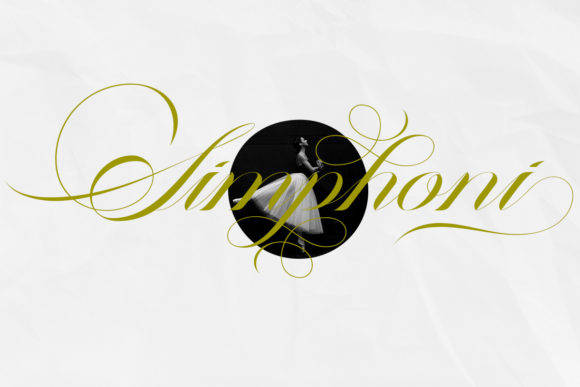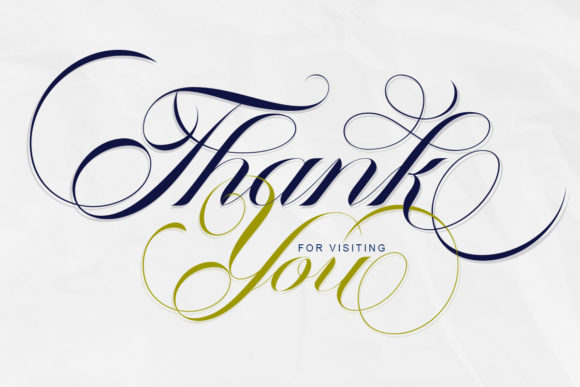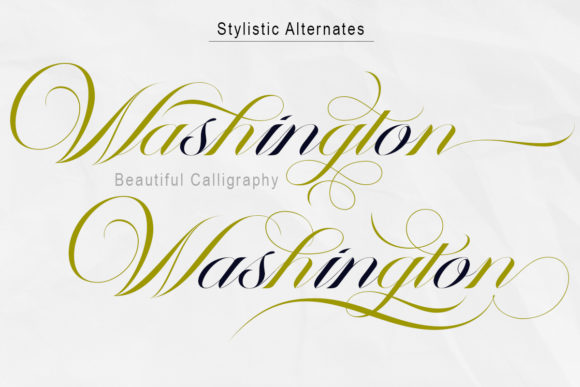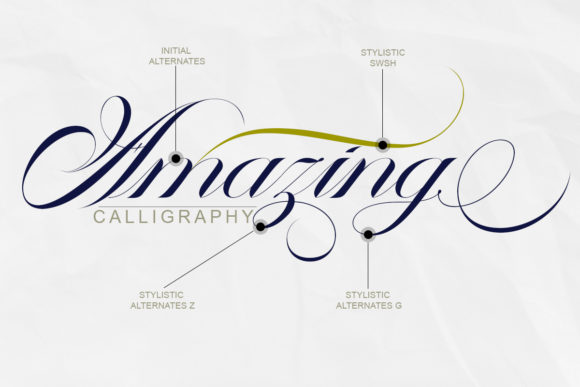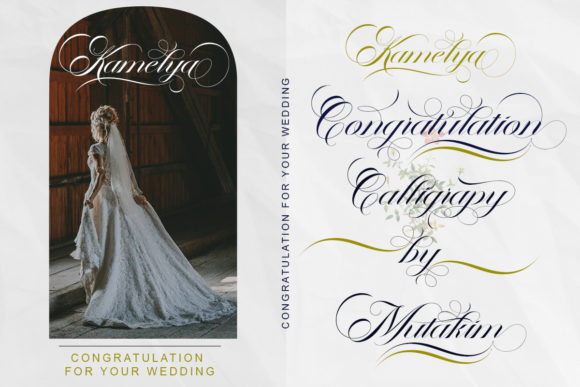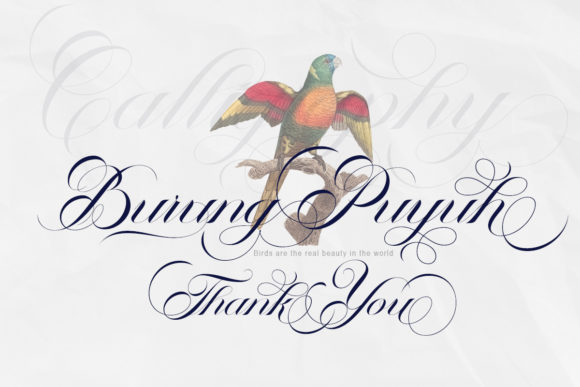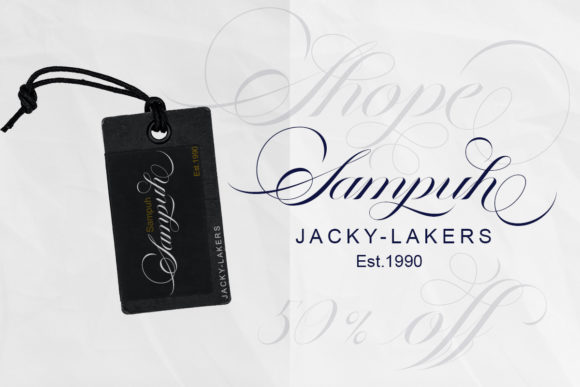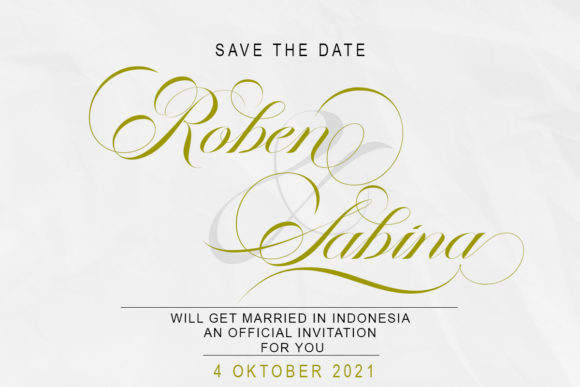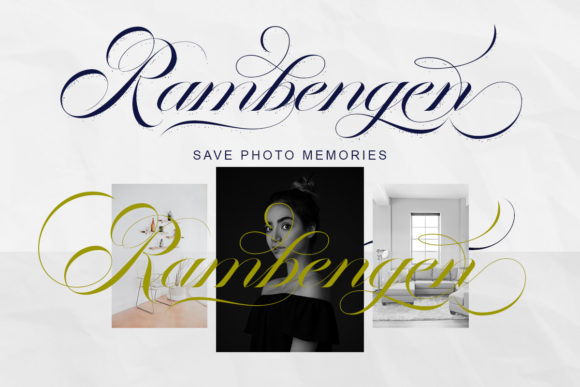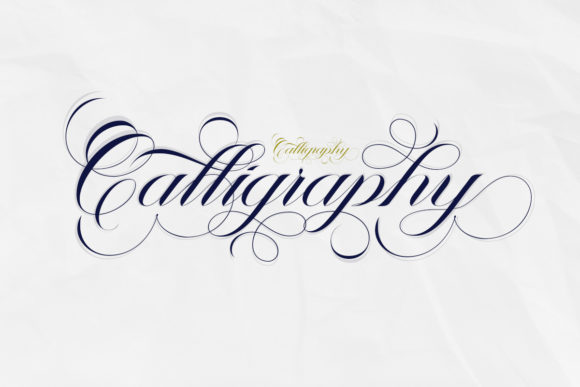
The Antter Font
About The Antter Font
The Antter is a calligraphy script font. This is a beautiful combination of timeless elegance and authentic calligraphy. It features an incredibly classic style, while still keeping a friendly feel. The Antter is the perfect font for making original and outstanding designs.
Fall in love with its authentic feel and use it to create gorgeous wedding invitations, beautiful stationary art, eye-catching social media posts, and cute greeting cards.